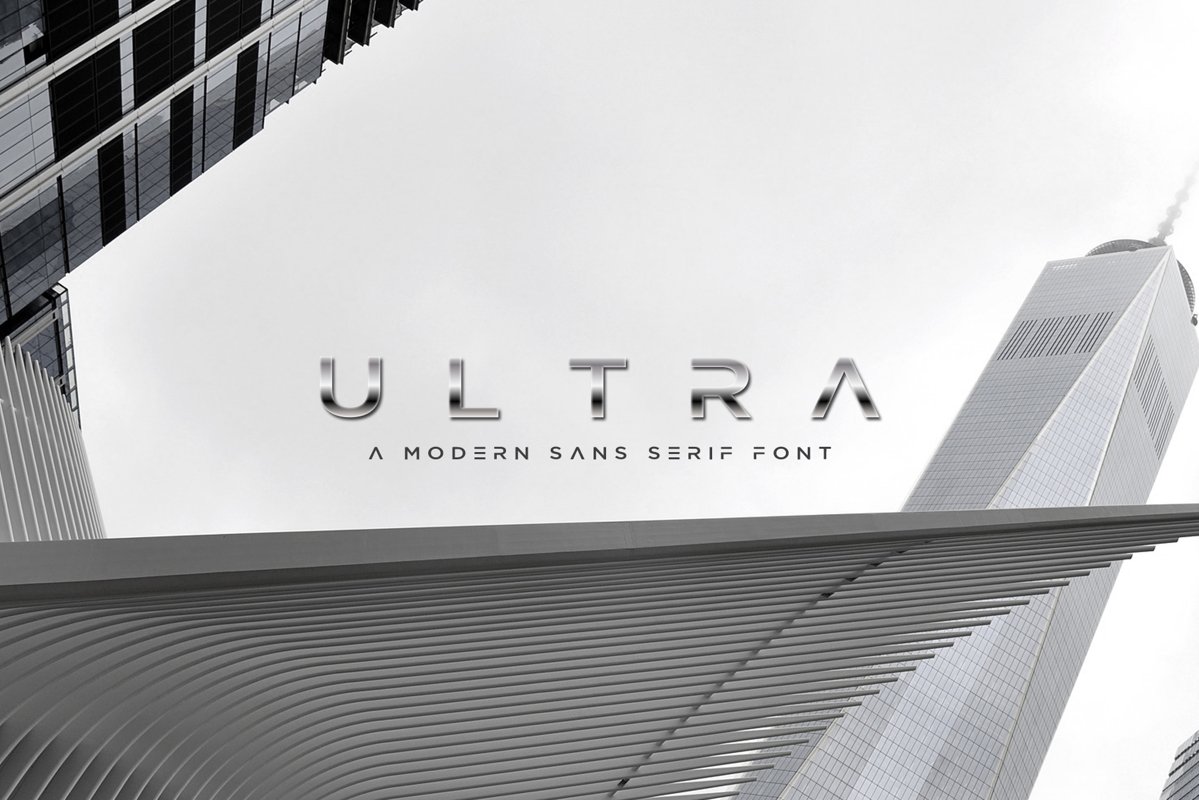
ULTRA - Modern Sans Serif Font
MBF Ultra
MBF Ultra Italic
A modern sleek uppercase sans serif display font.
a font with a futuristic edge, geometric corners, inspired from the modern high tech architecture world.